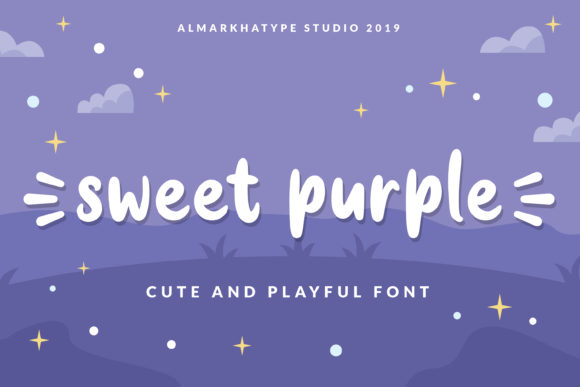
Escape into the enchanting world of Sweet Purple, a whimsical script font that will ignite your imagination and transform your designs into captivating masterpieces.
Sweet Purple is not just a font; it's a gateway to a world of endless creativity. Its charming and playful curves will bring a touch of whimsy and fun to your every creation.
Picture this: the playful flourishes of Sweet Purple adorning your child's birthday invitations, adding a touch of magic to their special day. Or perhaps you're a designer seeking to create memorable logos and branding that leave an unforgettable impression. Sweet Purple has got you covered!
But wait, there's more! Sweet Purple is not just for kids. Its versatility extends far beyond children's designs. It's the perfect choice for adding a touch of whimsy to your social media posts, crafting eye-catching posters that demand attention, or designing charming greeting cards that will warm hearts.